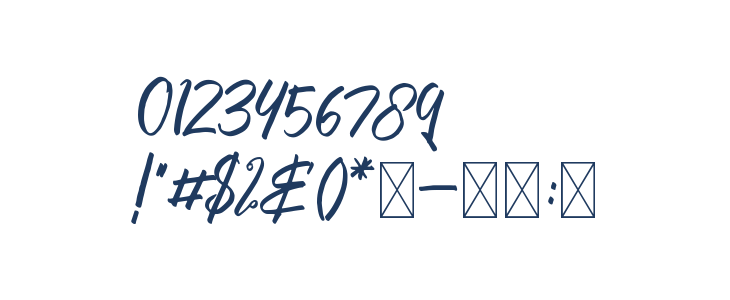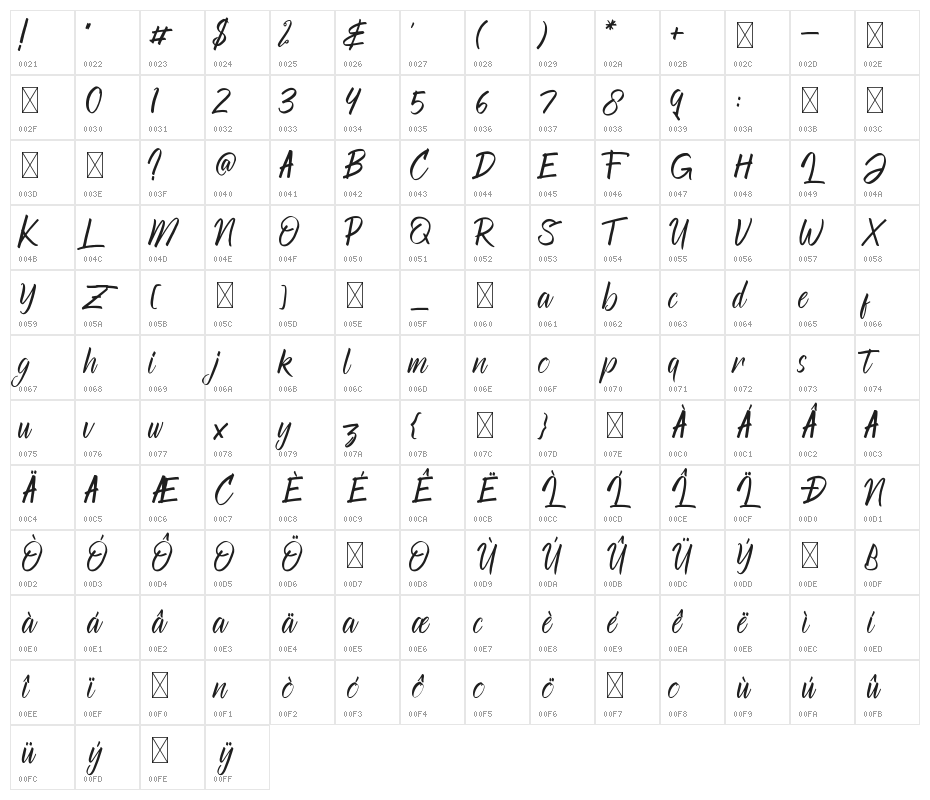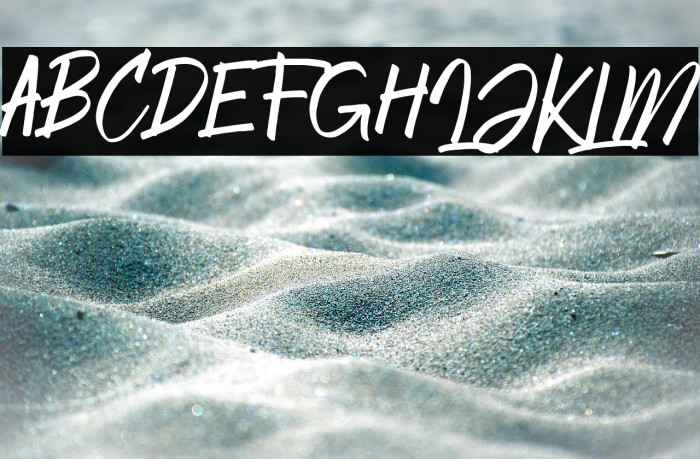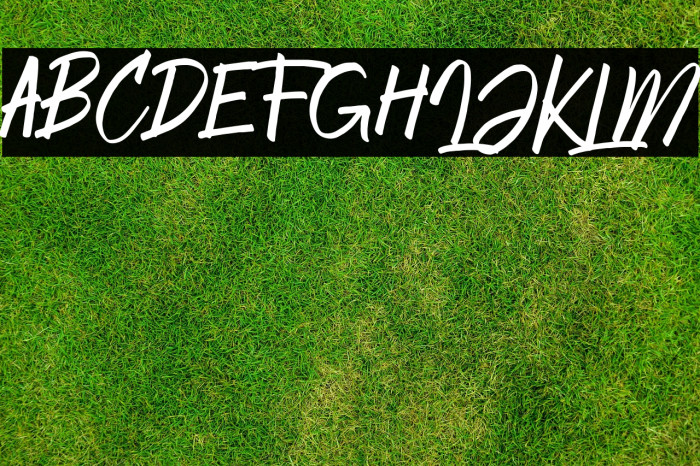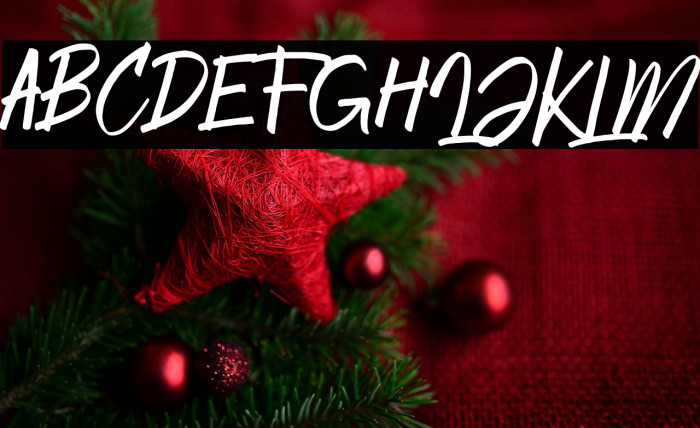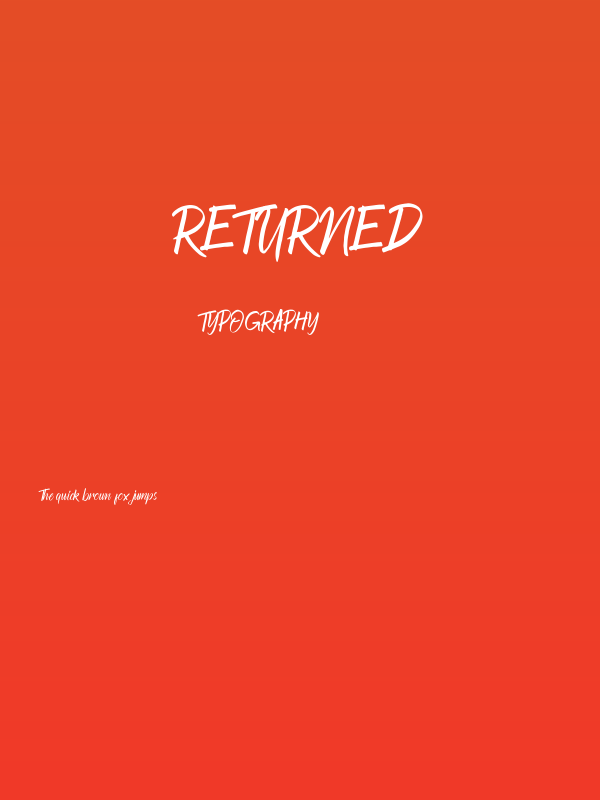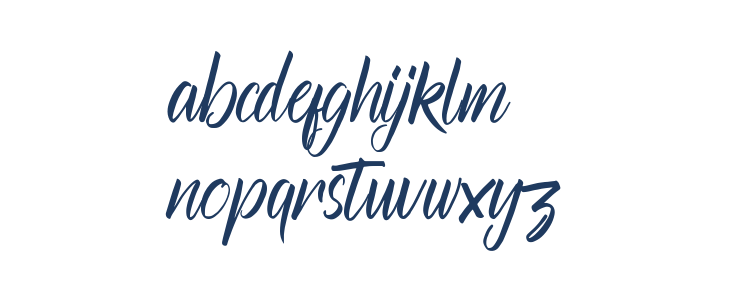
Returned Font
This font exhibits a dynamic and energetic script style, characterized by its fluid and cursive letterforms. The uppercase letters are bold and slightly slanted, giving a sense of movement and flair. The lowercase letters maintain a consistent flow, with smooth connections between characters, enhancing its handwritten appeal. The numerals are clear and legible, matching the overall style with a slight slant. Special characters are creatively integrated, maintaining the font's lively and expressive nature. This font is ideal for projects that require a personal touch or a sense of elegance and sophistication.